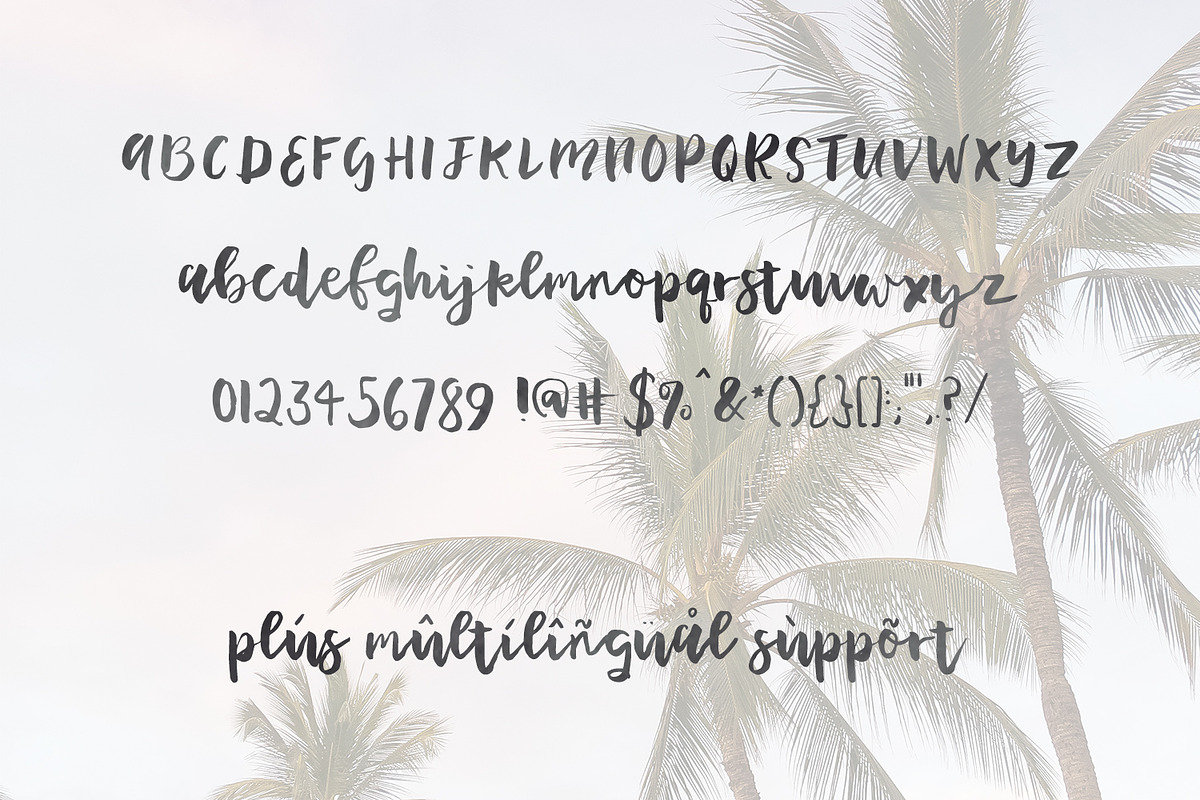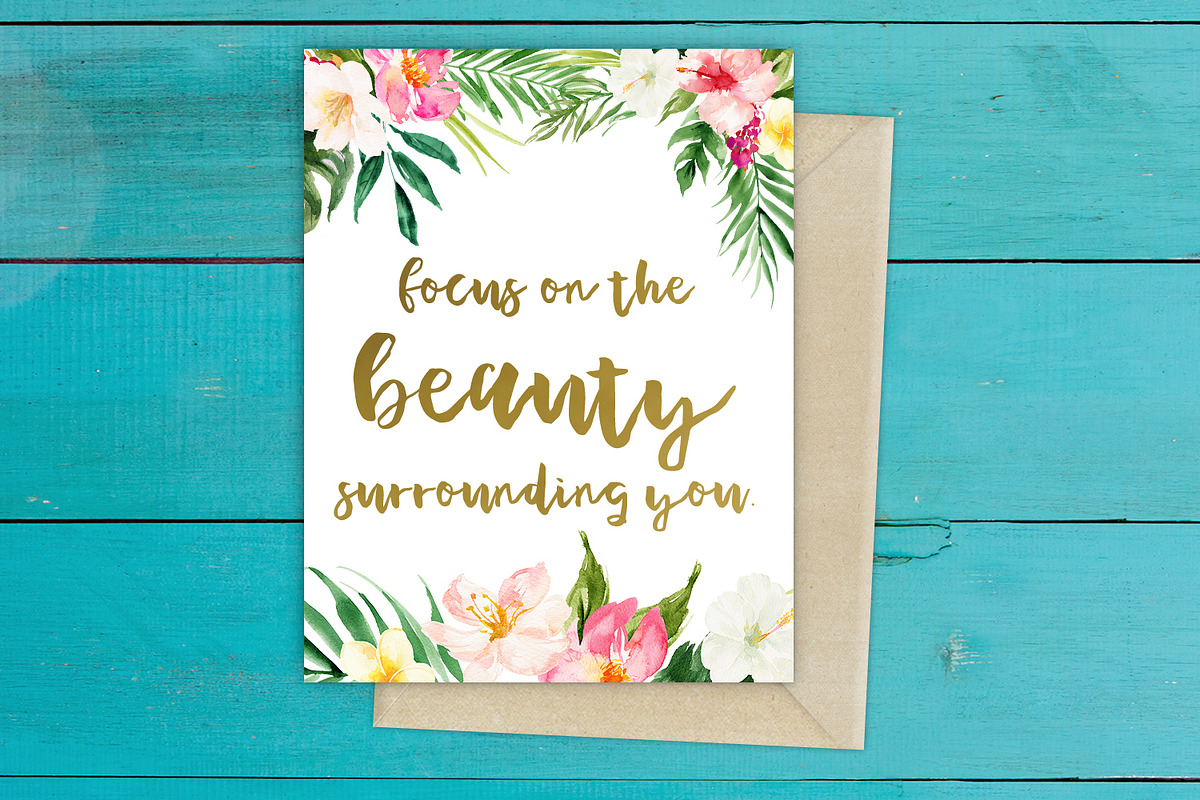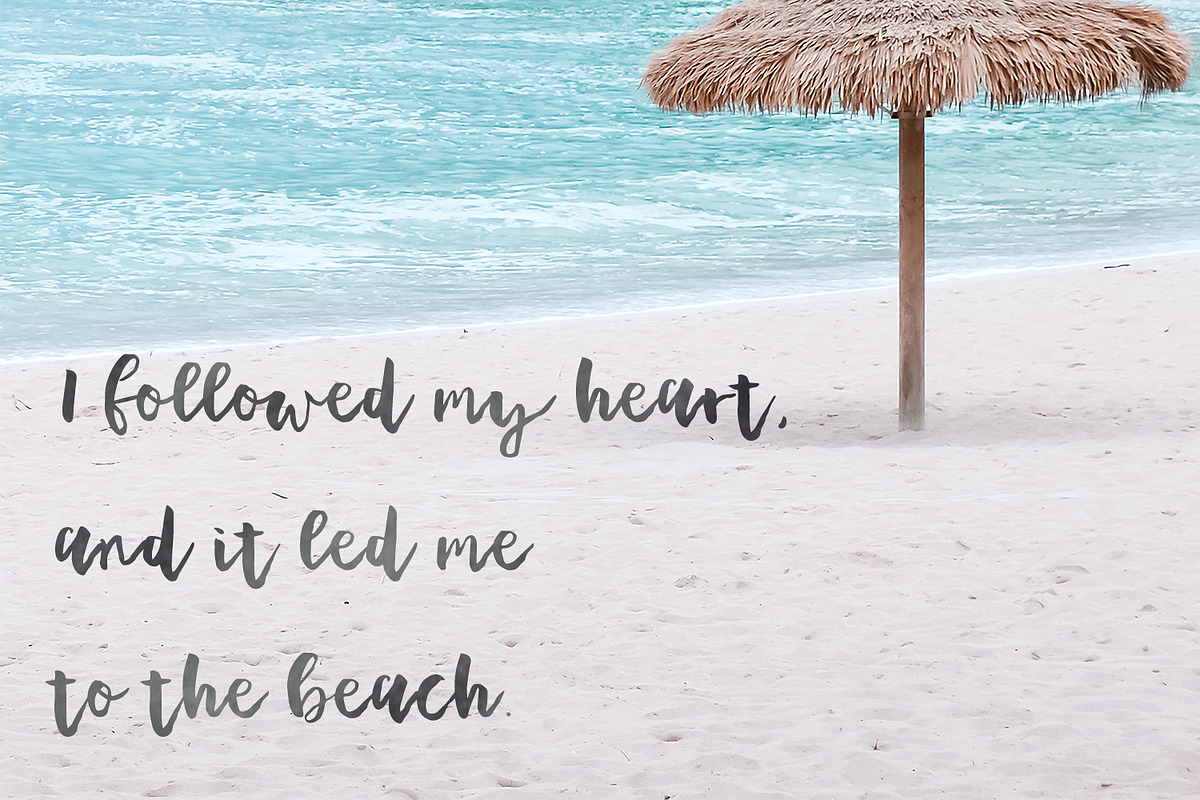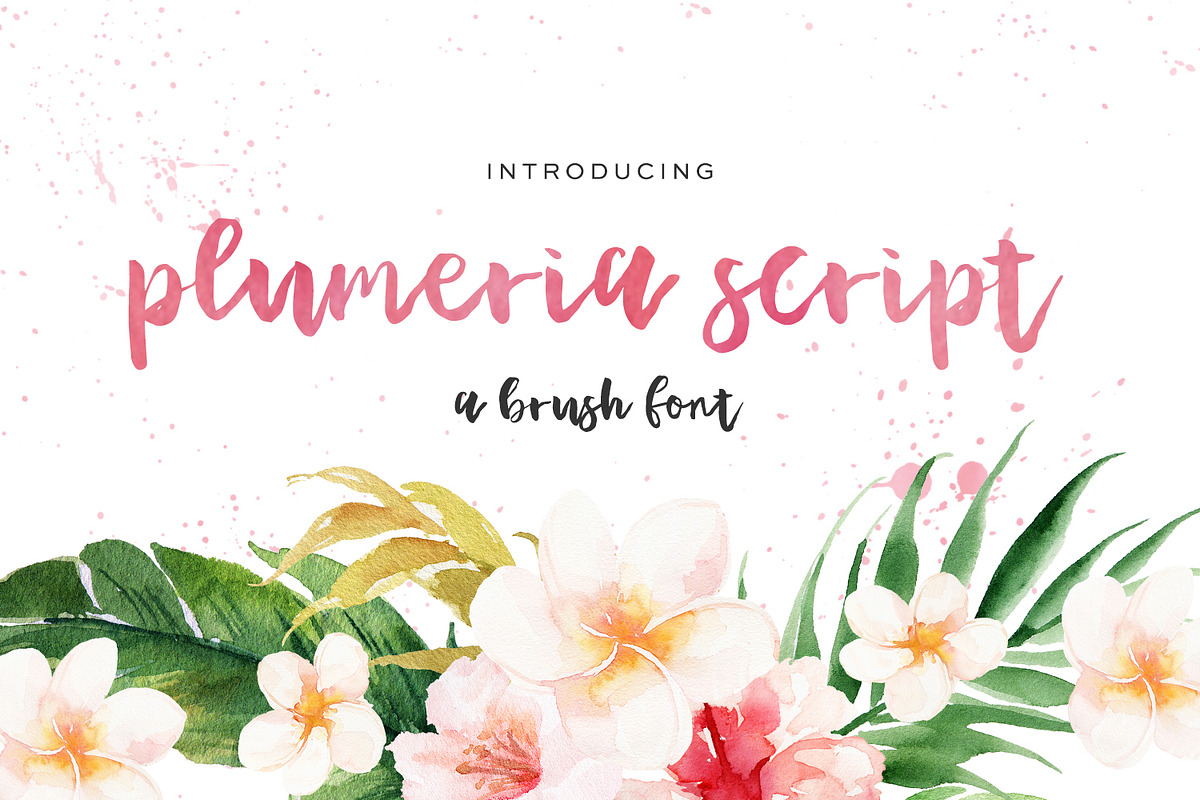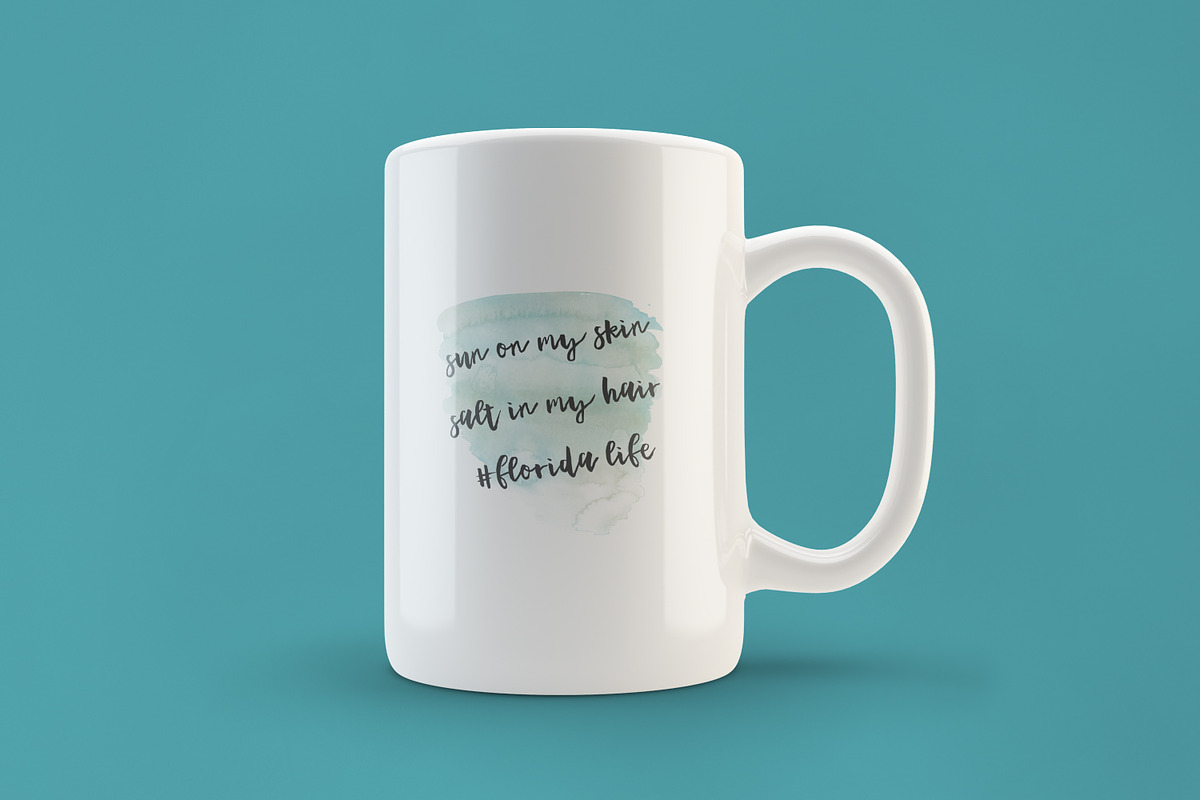
Plumeria Script
Introducing Plumeria Script, a brush font.
Growing up beachside with plumeria flowers and hibiscus everywhere you looked is sort of like living in a tropical dream. A little funky & irregular, Plumeria Script is still beautiful & unique like the blooms on each plant. Plumeria Script would be perfect for greeting cards, edgy branding projects, t-shirts & quote graphics.
Plumeria Script includes Western European language support.